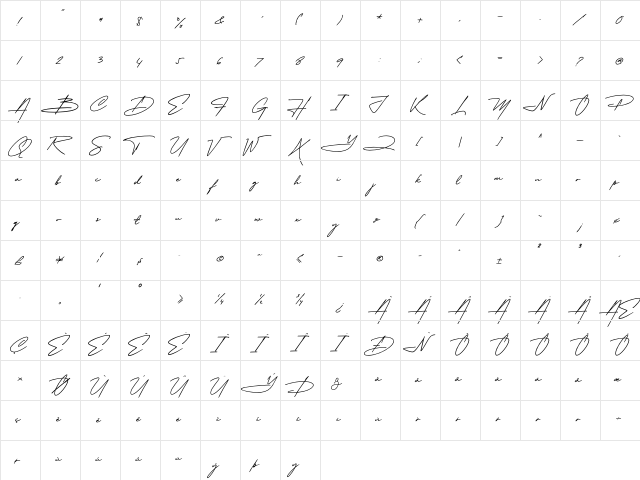
Holimount Regular
| Designer | Muhammad Ridha Agusni |
Design Context for Holimount Typeface
Holimount is a composed and adaptable typeface that performs quietly and consistently across a wide range of design contexts.